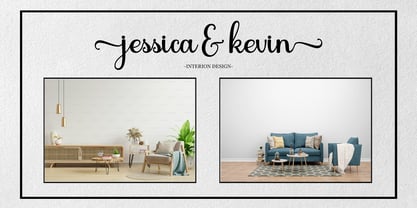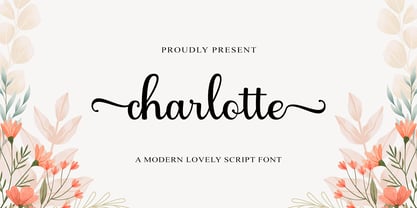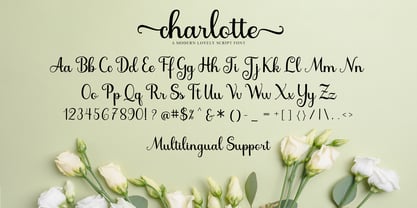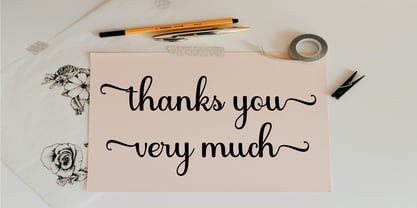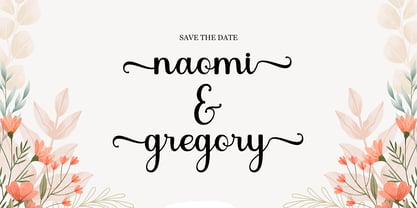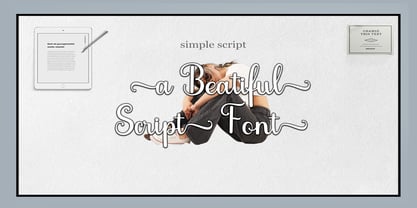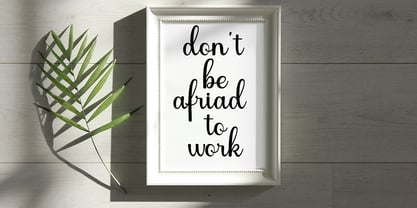
Charlotte Modern
by Naiza Studio
The Charlotte Modern Font Family was designed by Ata Illah and published by Naiza Studio. Charlotte Modern contains 1 styles. More about this family
Charlotte is an elegant and flowing handwritten font. It has varied baselines, smooth lines, beautiful glyphs, and stunning alternates. It maintains a classy calligraphic influence while feeling contemporary and fresh. Fall in love with this font and take your projects to the highest level!
Designers: Ata Illah
Foundry: Naiza Studio